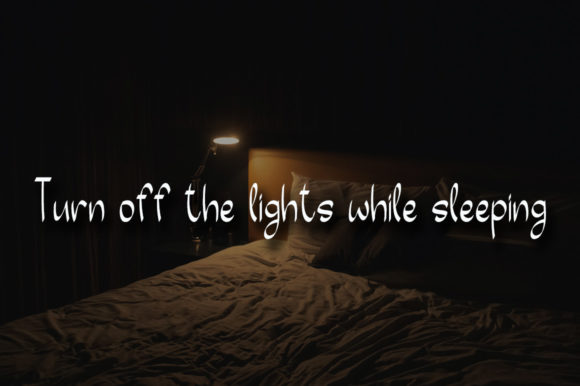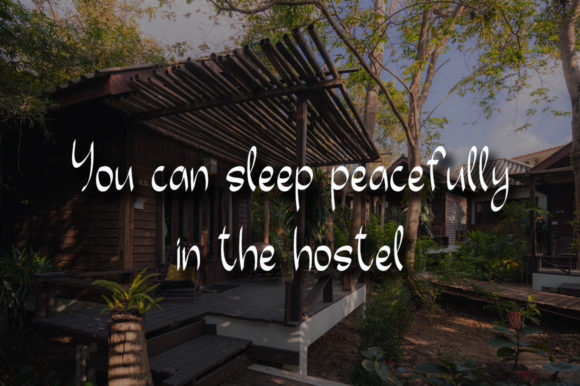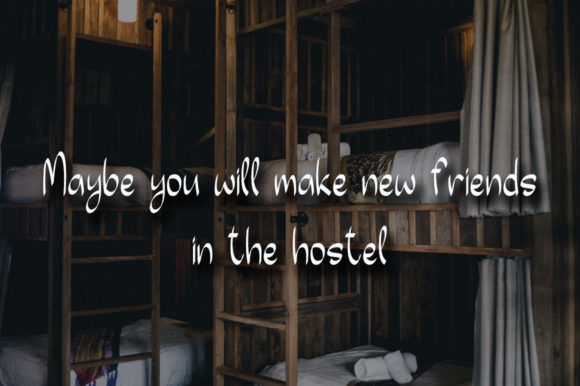
Introduction to Hostel Font
Hostel is a sweet and friendly handwritten font.
Why Choose Hostel Font?
Hostel Font offers exceptional quality and versatility, making it a valuable addition to your design toolkit. Whether you’re creating for personal projects or commercial use, Hostel Font delivers professional results.